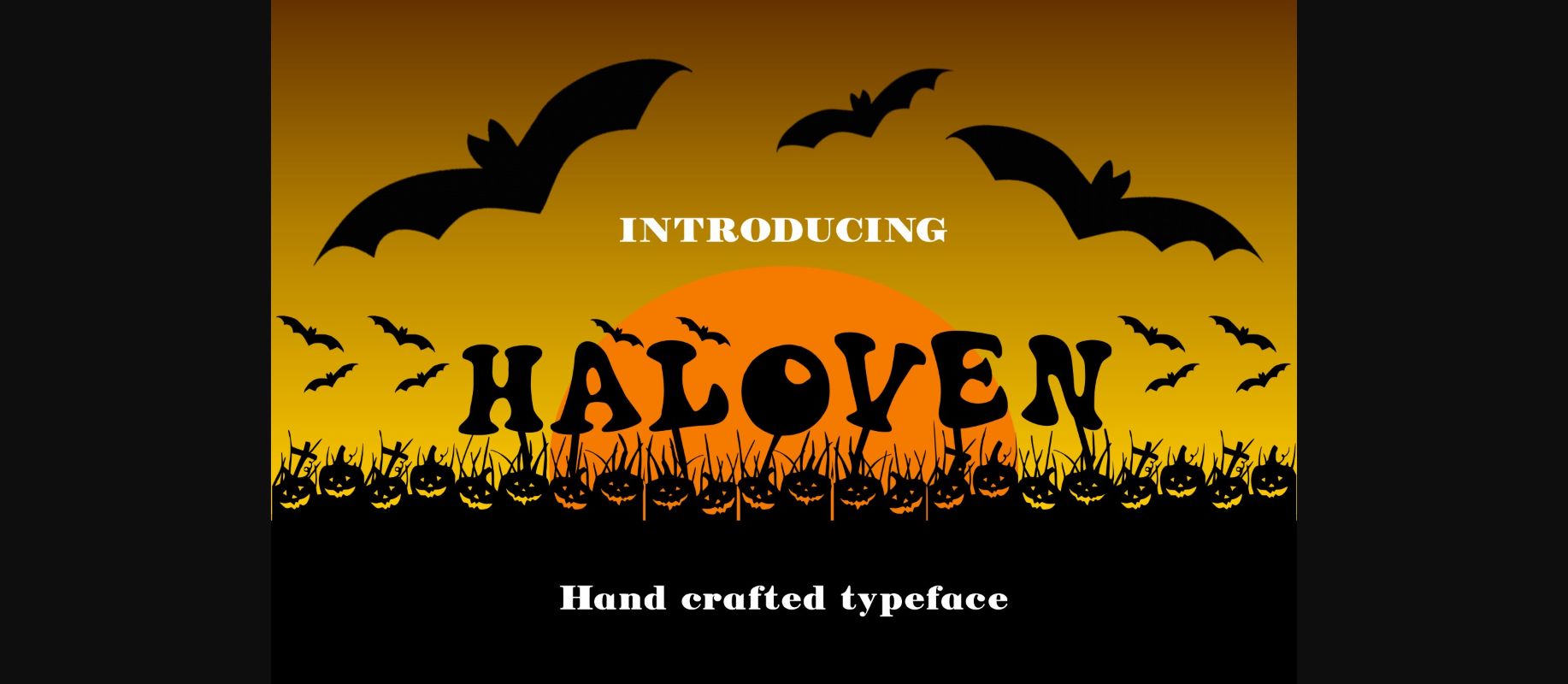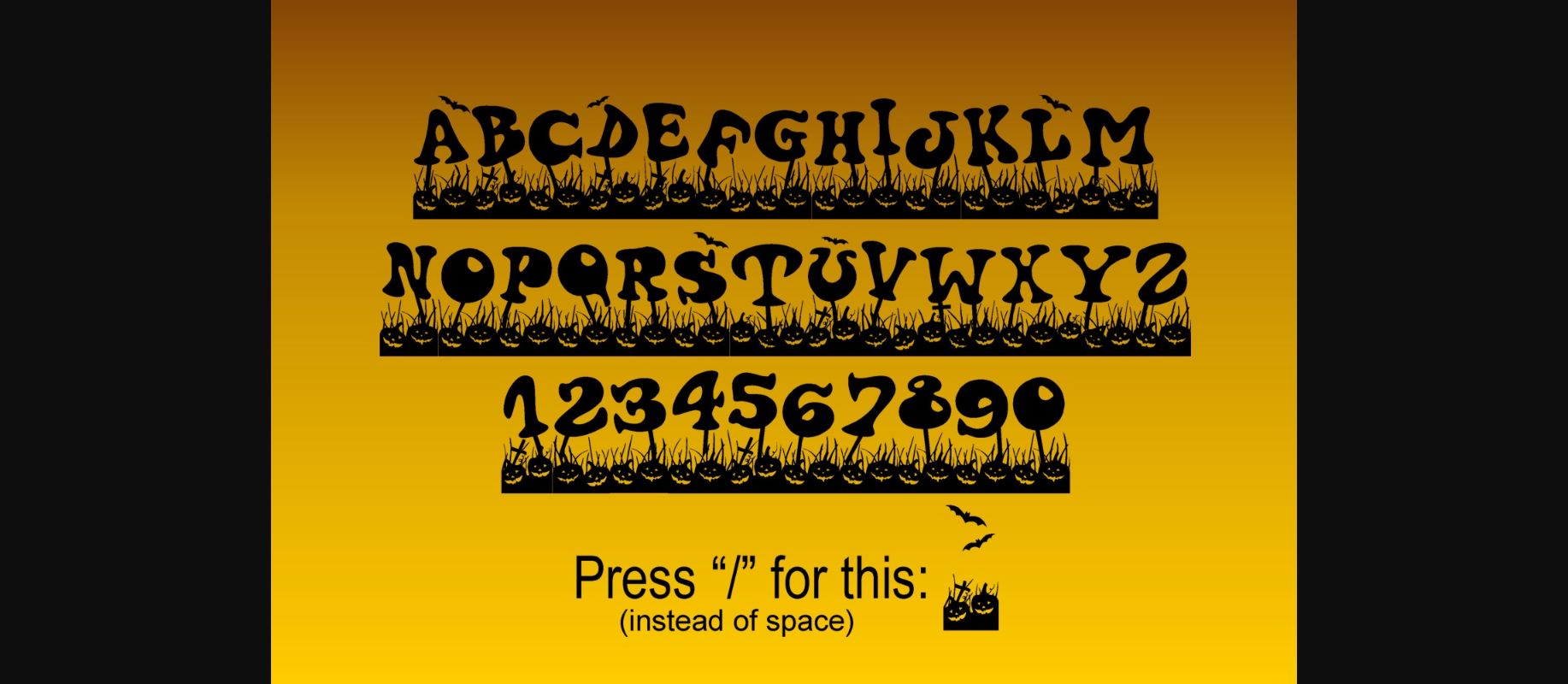
Haloven Font
About Haloven Font
Only capital letters and numbers and “/”, so you can create a continuous background instead of added a blank space. The perfect Halloween font!